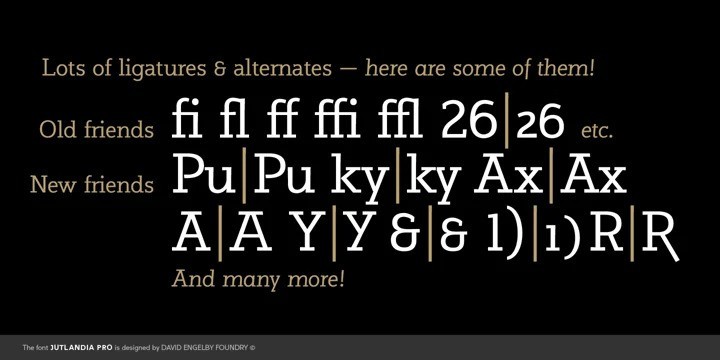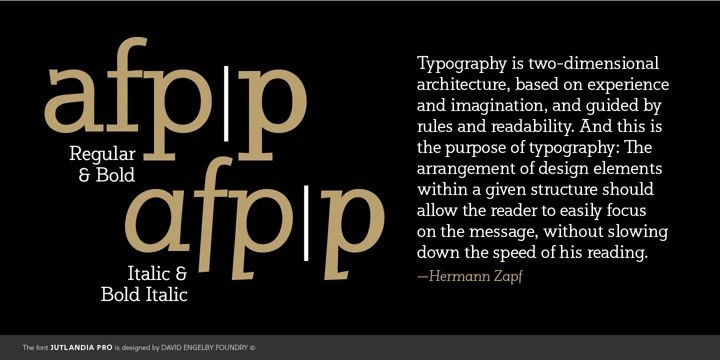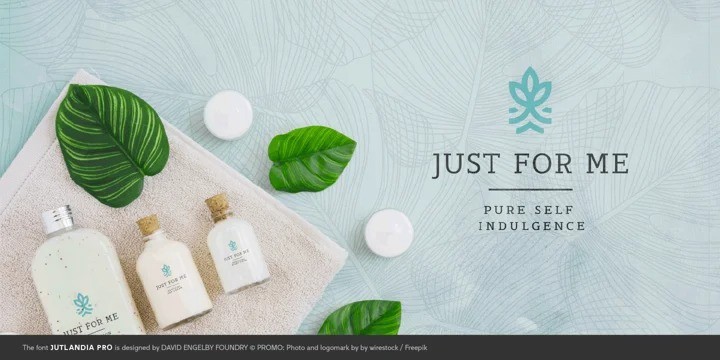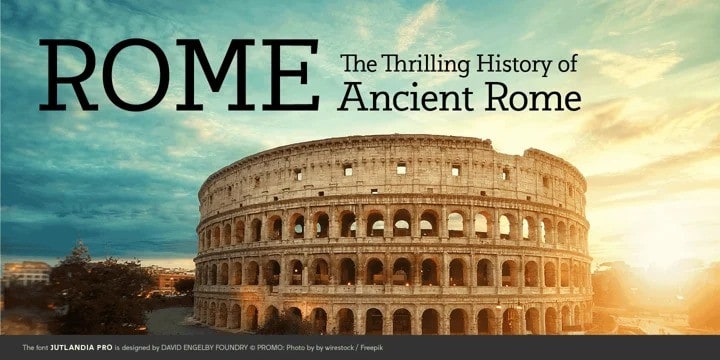
Jutlandia Pro Slab Serif Font is a gorgeous slab serif typeface that is both classically elegant and modern. It’s designed and shared by David Engelby Foundry. Create beautiful wedding invitations, use it as an elegant solution for your next magazine layout,logo, powerpoint templates design , quotes teks or choose Jutlandia Pro for any graphics that require a sleek look with a vintage flair.